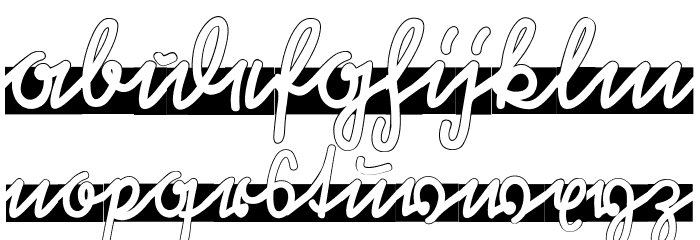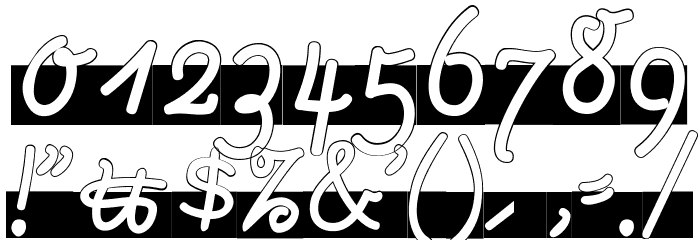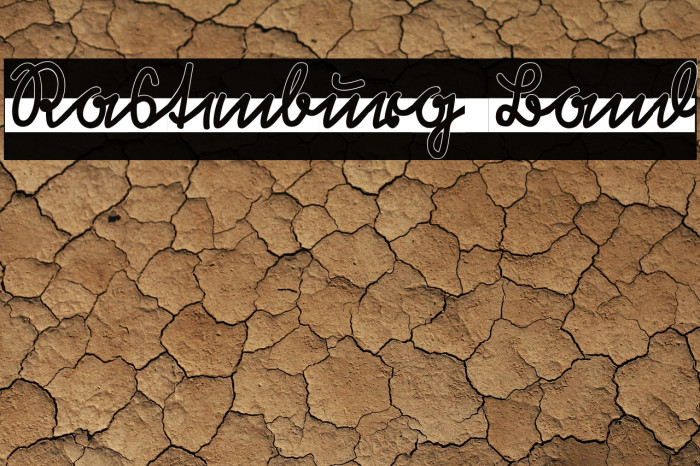
Rastenburg Band Font
This font features a playful and dynamic script style with a handwritten appearance. The characters are interconnected, creating a fluid and continuous flow that mimics natural handwriting. The strokes are smooth and slightly rounded, giving it a friendly and approachable look. The uppercase letters are bold and prominent, while the lowercase letters maintain a consistent rhythm. Numbers and special characters are designed to match the overall style, ensuring a cohesive appearance. This font is ideal for projects that require a personal touch or a casual, informal vibe.
A playful, handwritten script font with interconnected characters and a friendly appearance.
- Overall Style: Casual, Handwritten